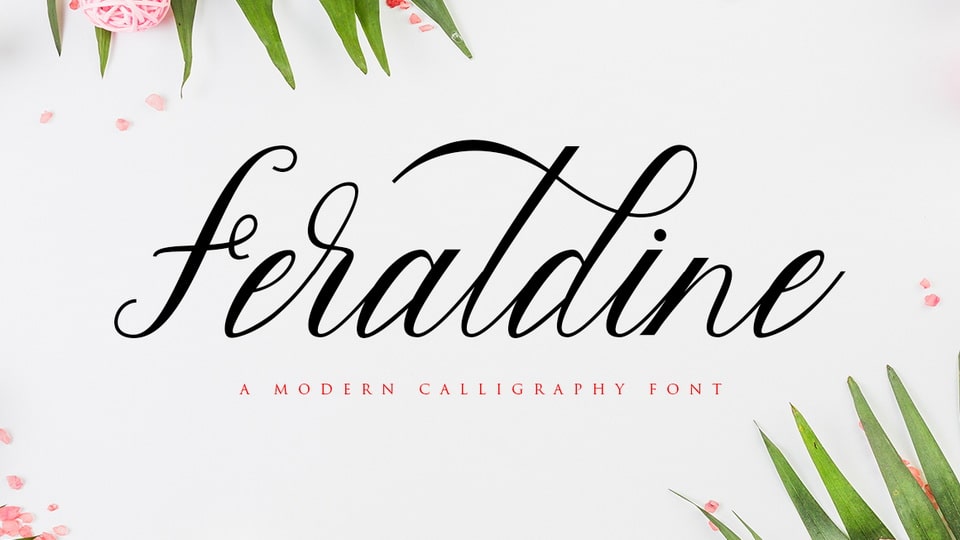
Download Feraldine Script font, a sweet calligraphy font. It is casual and pretty with swashes. Can used for various purposes, such as logo, product packaging, wedding invitations and so on.